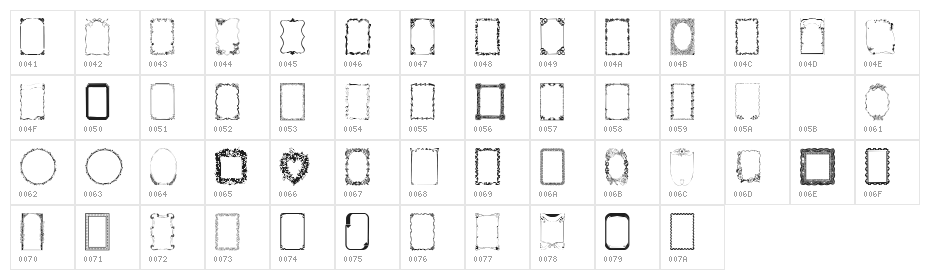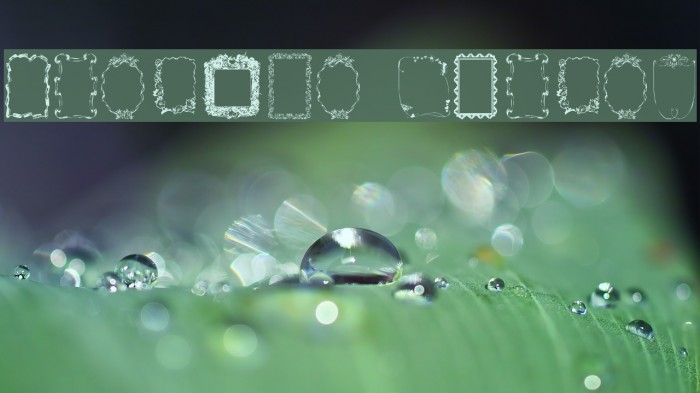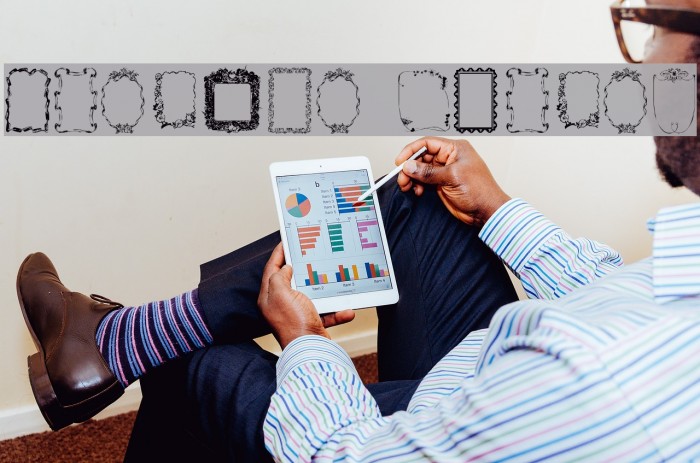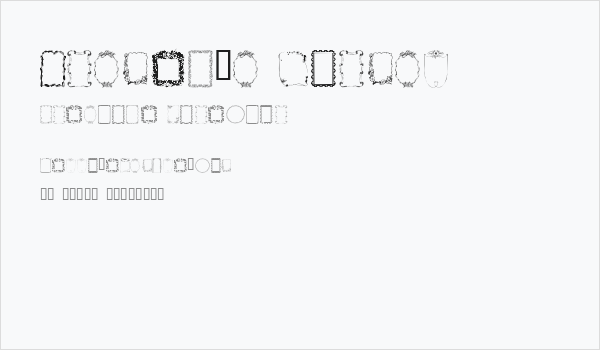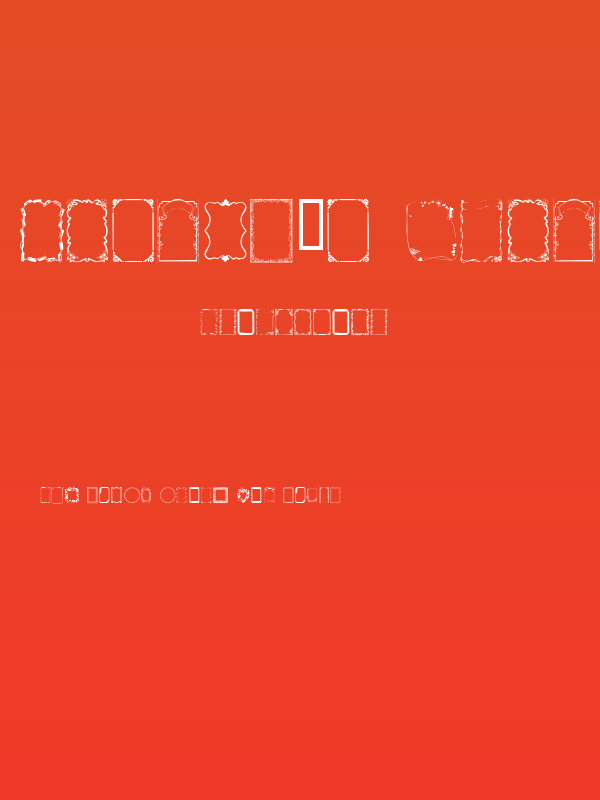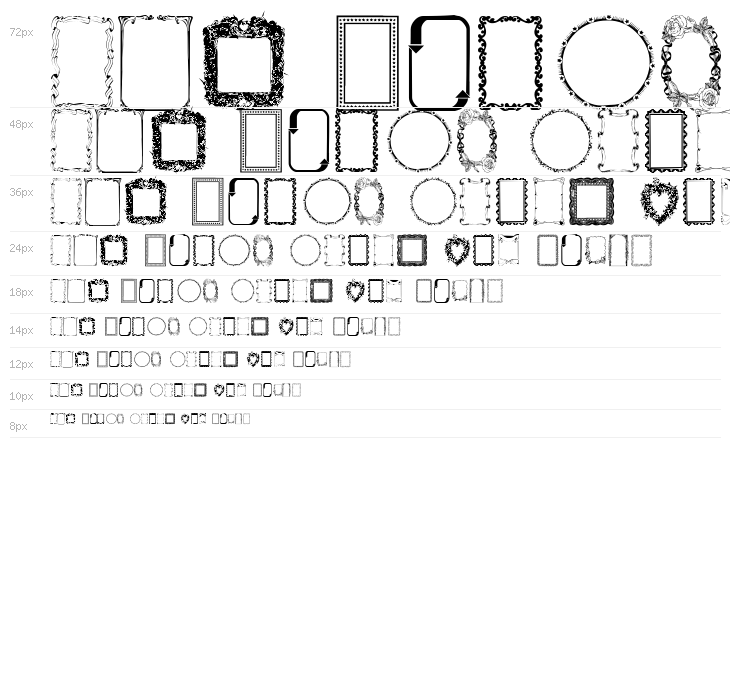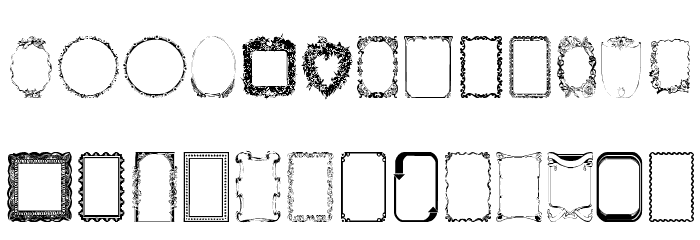
Frames1a Normal Font
Frames1a Normal Description
A decorative collection of ornate and simple rectangular, oval, and heart-shaped frames with a variety of border styles, ranging from intricate floral and vintage motifs to bold, minimal geometric outlines.
| Overall Style | Decorative, Vintage, Modern (depending on frame) |
| Use Case | Borders, design accents, digital scrapbooking, invitations. |
| Proposed Projects | Invitations, certificates, scrapbooking, graphic design elements, digital art, posters, photo borders. |